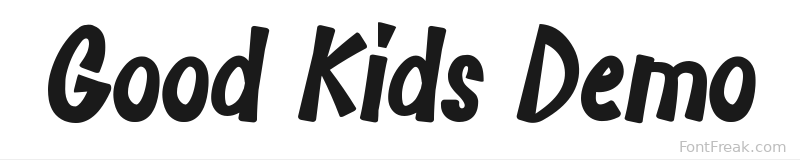
Good Kids Demo
About Good Kids Demo
The Good Kids Demo font by Noah Type is a delightful display typeface that captures the playful essence of childhood. This font features a handwritten style, characterized by its rounded edges and whimsical forms. The stroke weight is consistent, creating a friendly and approachable vibe, while the slight irregularities in letterforms add to its organic charm. The spacing between characters is well-balanced, ensuring readability while maintaining a fun aesthetic.
Good Kids Demo is an excellent choice for various applications. Its cheerful design makes it perfect for children's book covers, ensuring that the text appeals to young readers. Additionally, it can be used for birthday party invitations, where a light-hearted touch is essential. This font is also suitable for educational materials aimed at kids, as it engages and invites interest. Small business owners in the children's retail sector can leverage this font for branding and marketing materials, creating an inviting atmosphere that resonates with their target audience.
What sets the Good Kids Demo font apart is its ability to evoke nostalgia and joy, making it an ideal choice for creative projects centered around childhood themes. Its friendly and approachable design ensures that it stands out, capturing the essence of fun while remaining functional. This font is not just a typeface; it’s a celebration of creativity that invites engagement and imagination.